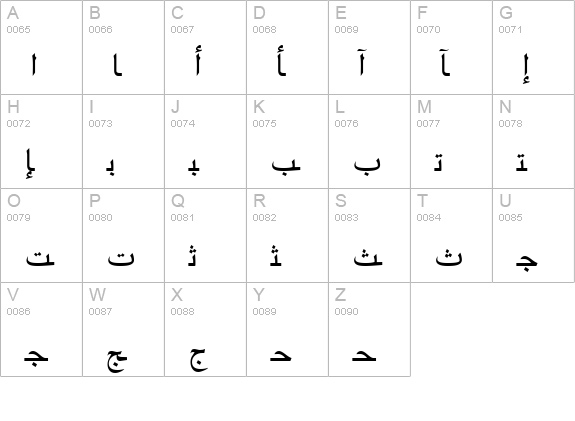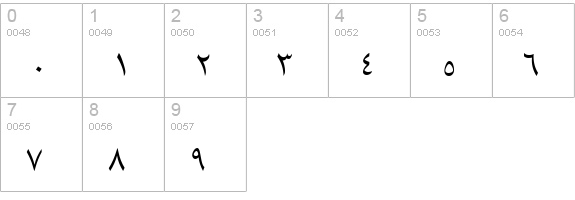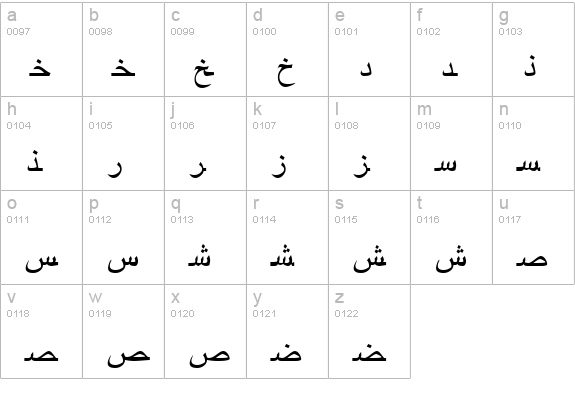
ArabicRiyadhSSK Font Details
Below you can preview ArabicRiyadhSSK in uppercase [A-Z], lowercase [a-z] and numbers [0-9]. You can also read the author's notes and license information before downloading.
ArabicRiyadhSSK font is a beautifully crafted Arabic font that embodies elegance and sophistication. With its unique design and intricate details, this font is perfect for adding a touch of luxury to your projects. The flowing curves and ornate embellishments make ArabicRiyadhSSK font a standout choice for any design. The best part is, ArabicRiyadhSSK font is available for free download at FontsMarket.com. This means you can easily access this stunning font and use it in your projects without any cost. Whether you're working on a branding project, a website design, or any other creative endeavor, ArabicRiyadhSSK font will elevate your work and make it truly stand out. Don't miss out on the opportunity to enhance your designs with the beauty and sophistication of ArabicRiyadhSSK font. Download it for free today and see the difference it can make in your projects!